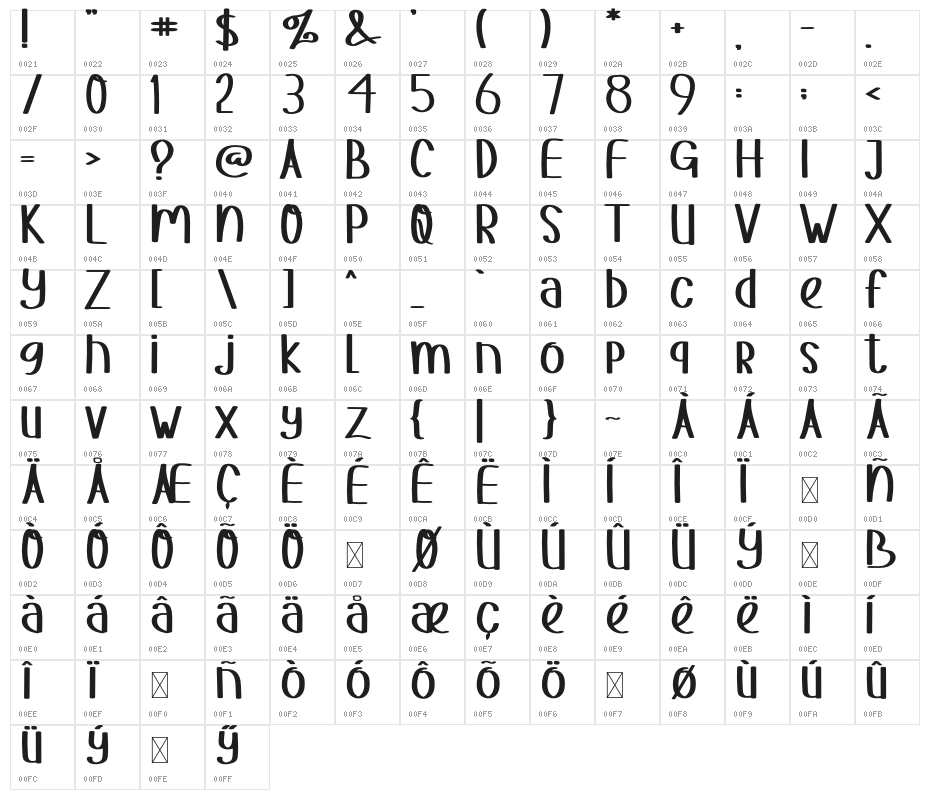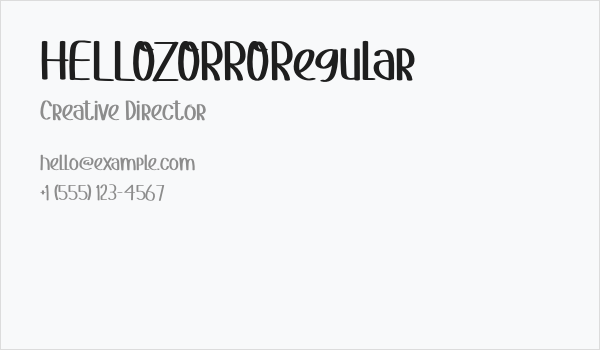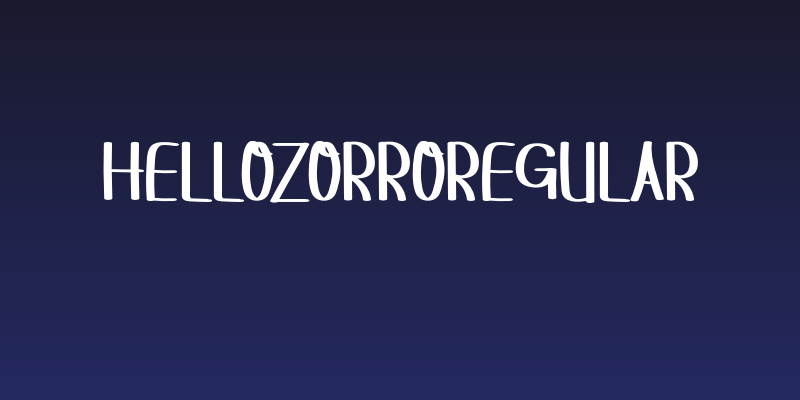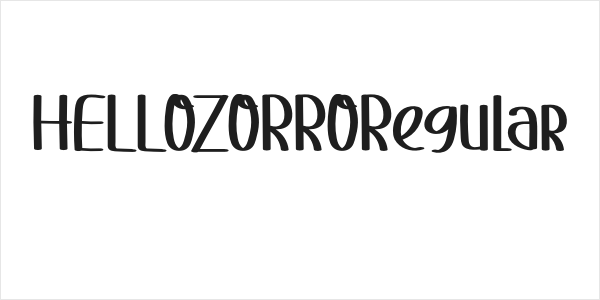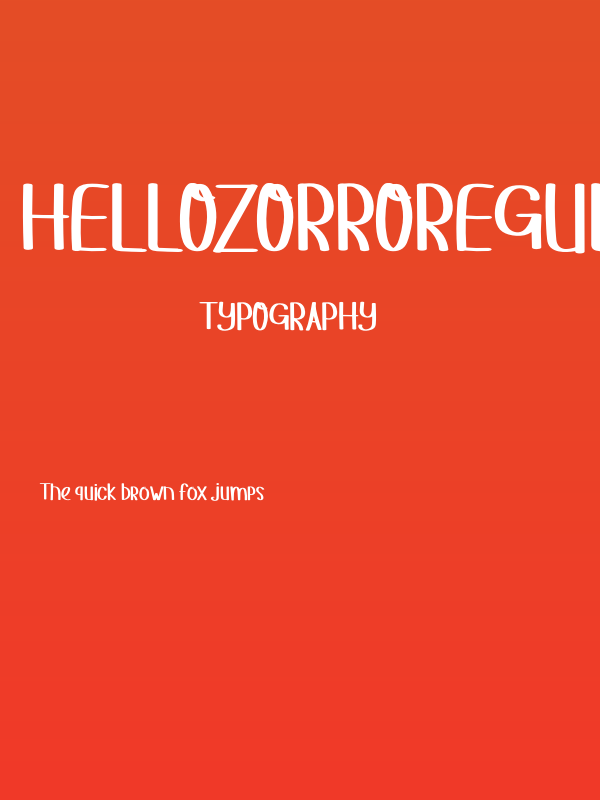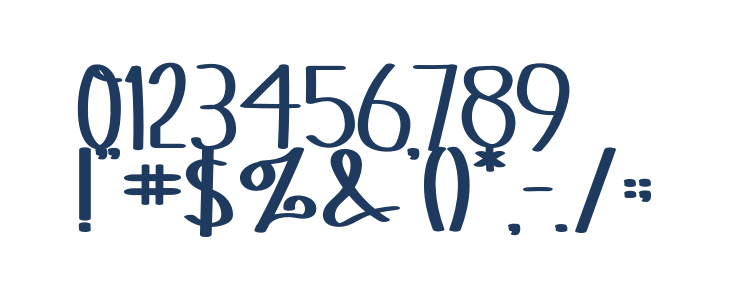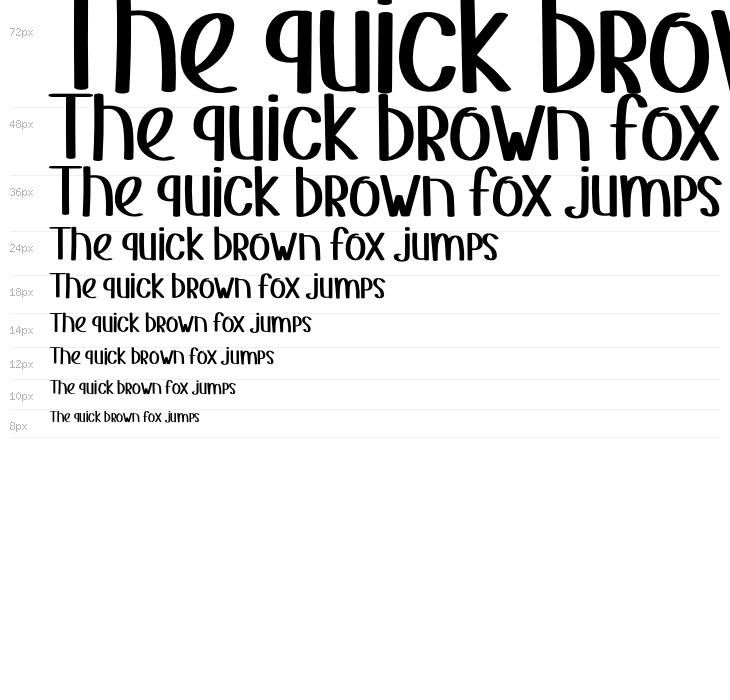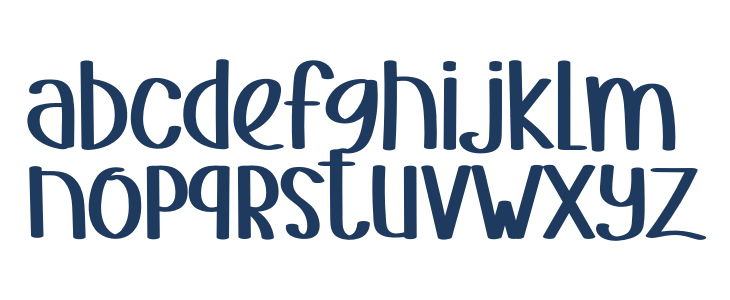
HELLOZORRORegular Font
HELLOZORRORegular Description
This font features a playful and whimsical style with a hand-drawn appearance. The characters are tall and slightly narrow, with a consistent stroke width that gives it a uniform look. The uppercase letters have a quirky charm, with some characters featuring unique curves and angles. The lowercase letters maintain the playful theme, with rounded edges and a casual feel. Numbers and special characters are designed to match the overall aesthetic, making them suitable for creative projects. The font's informal style makes it ideal for fun and engaging designs.
| Proposed Projects | Great for children's books, greeting cards, playful branding, and creative posters. |